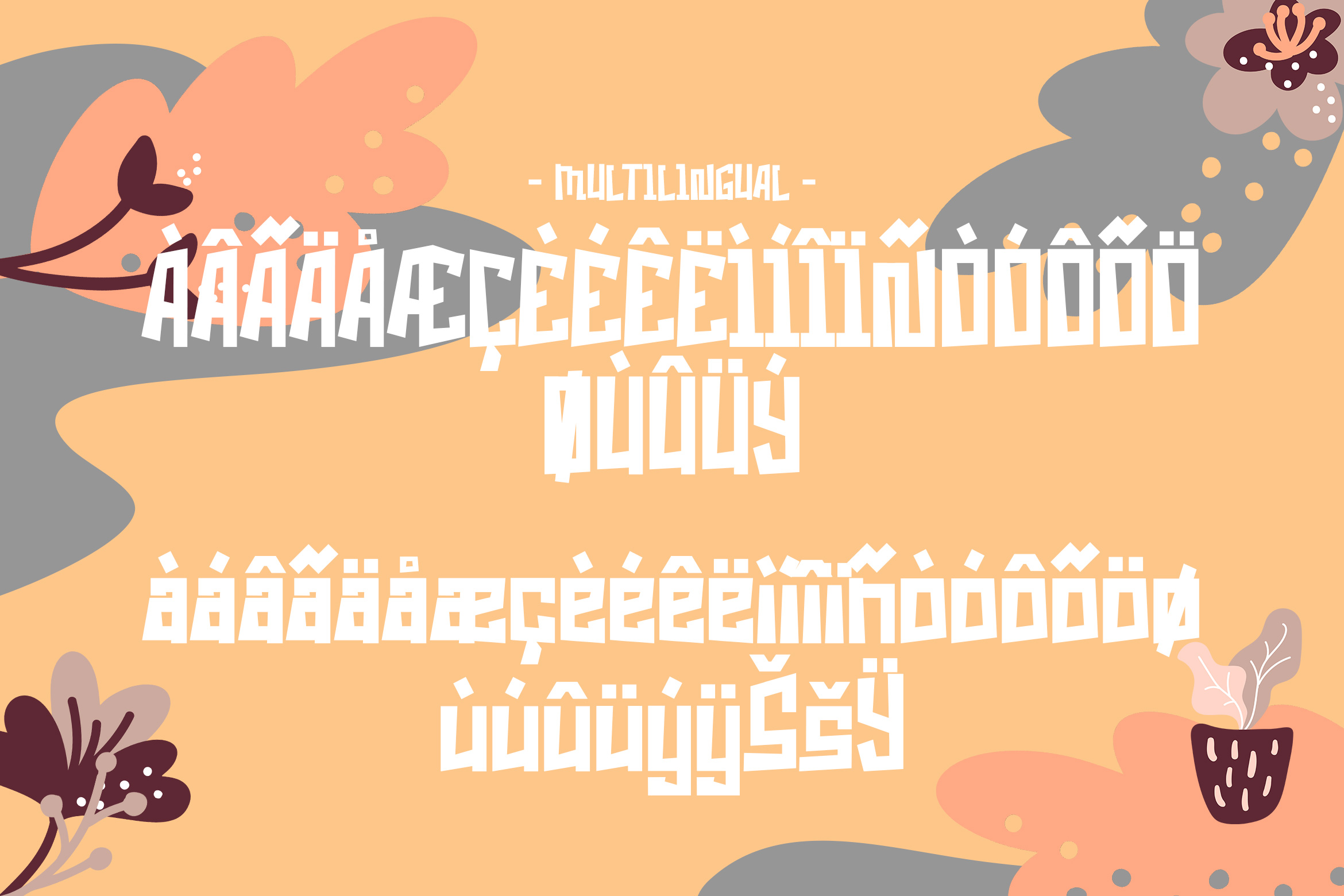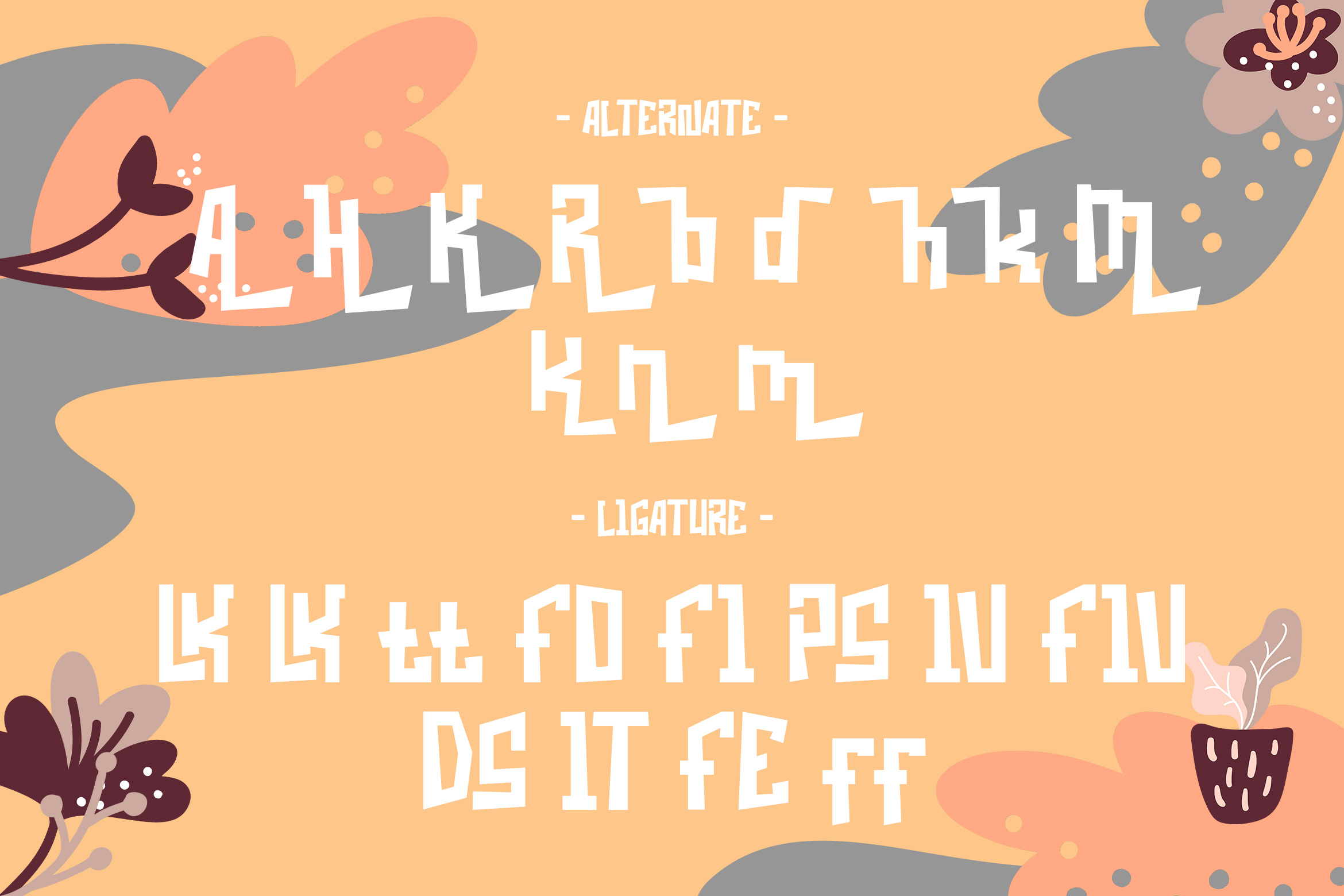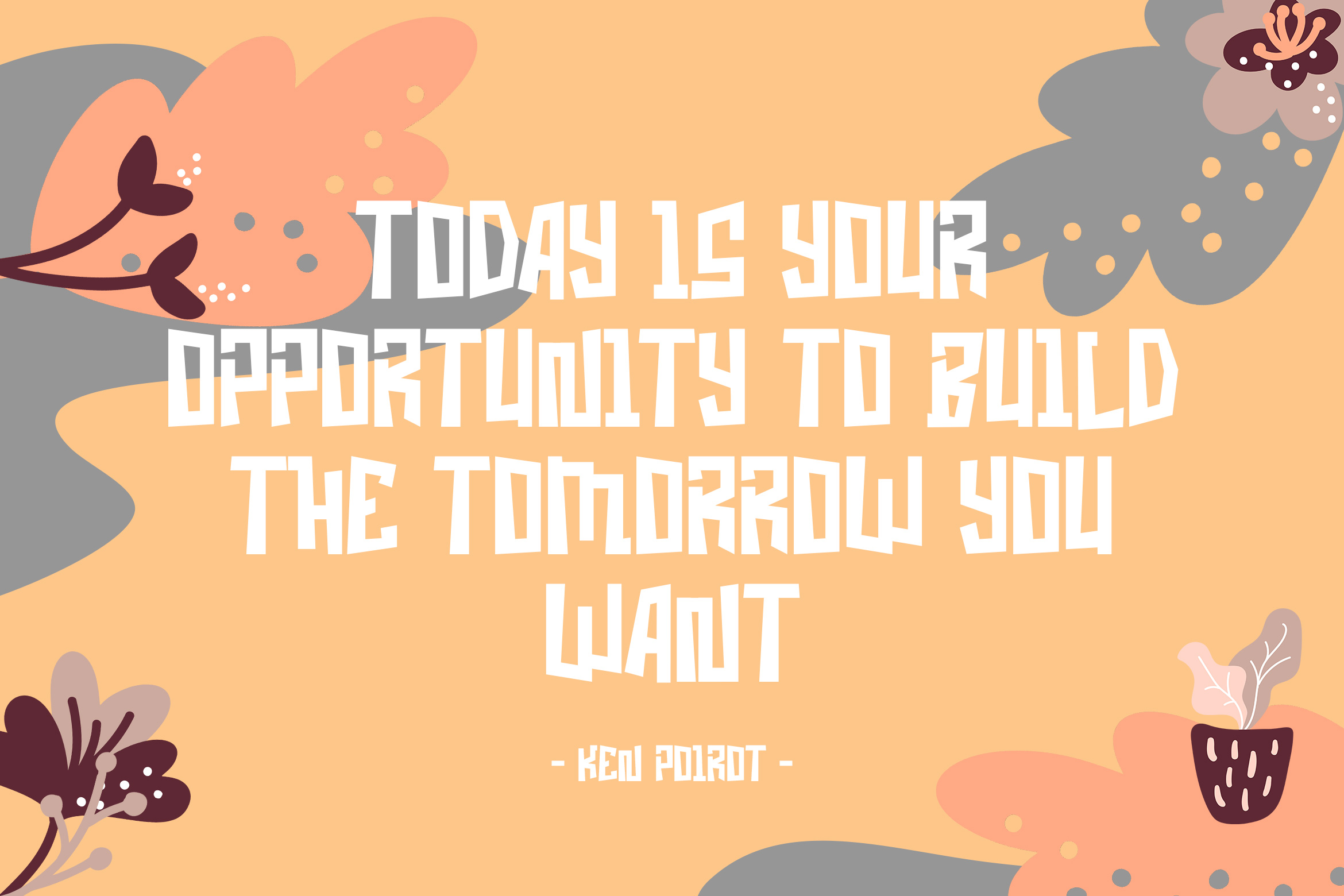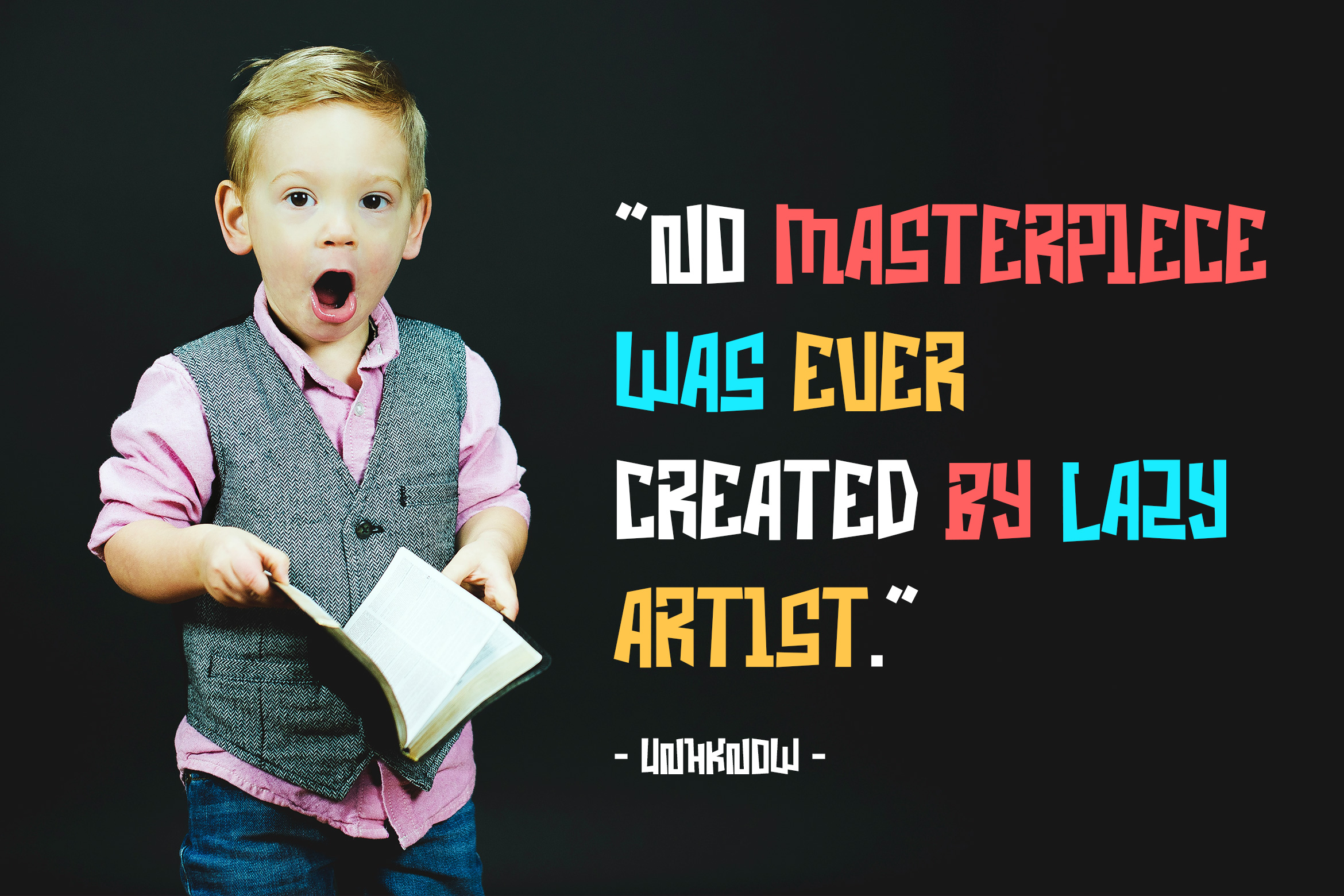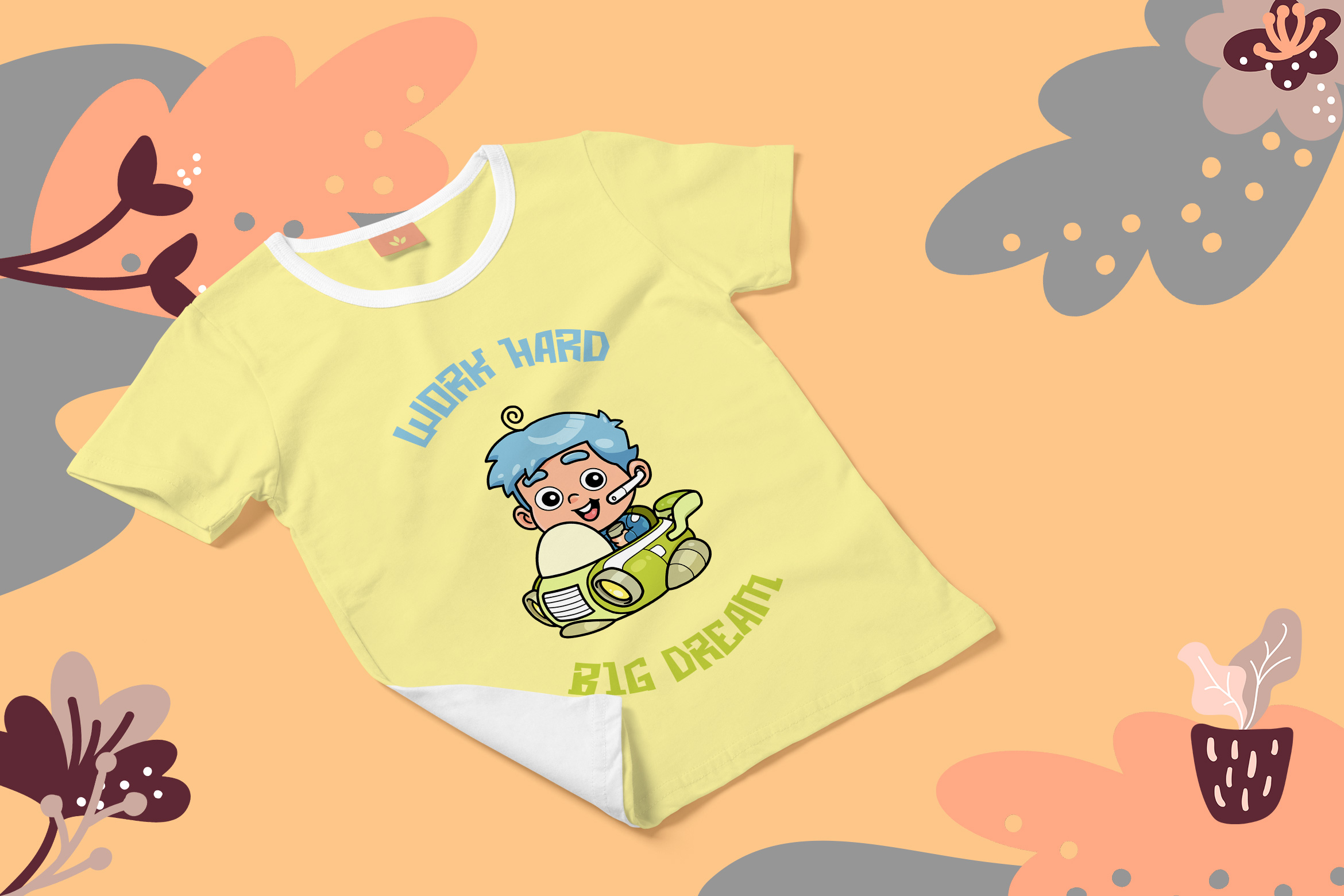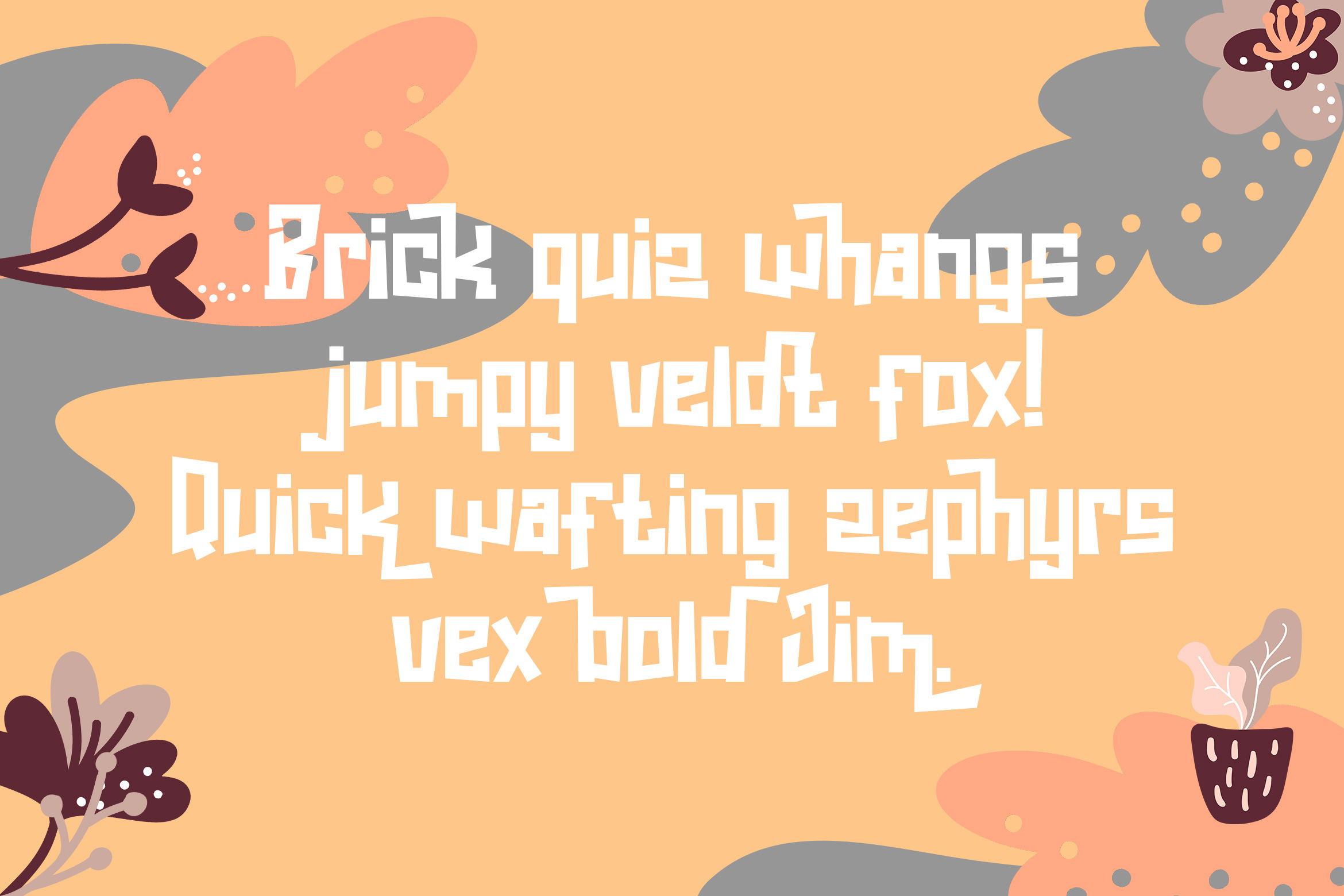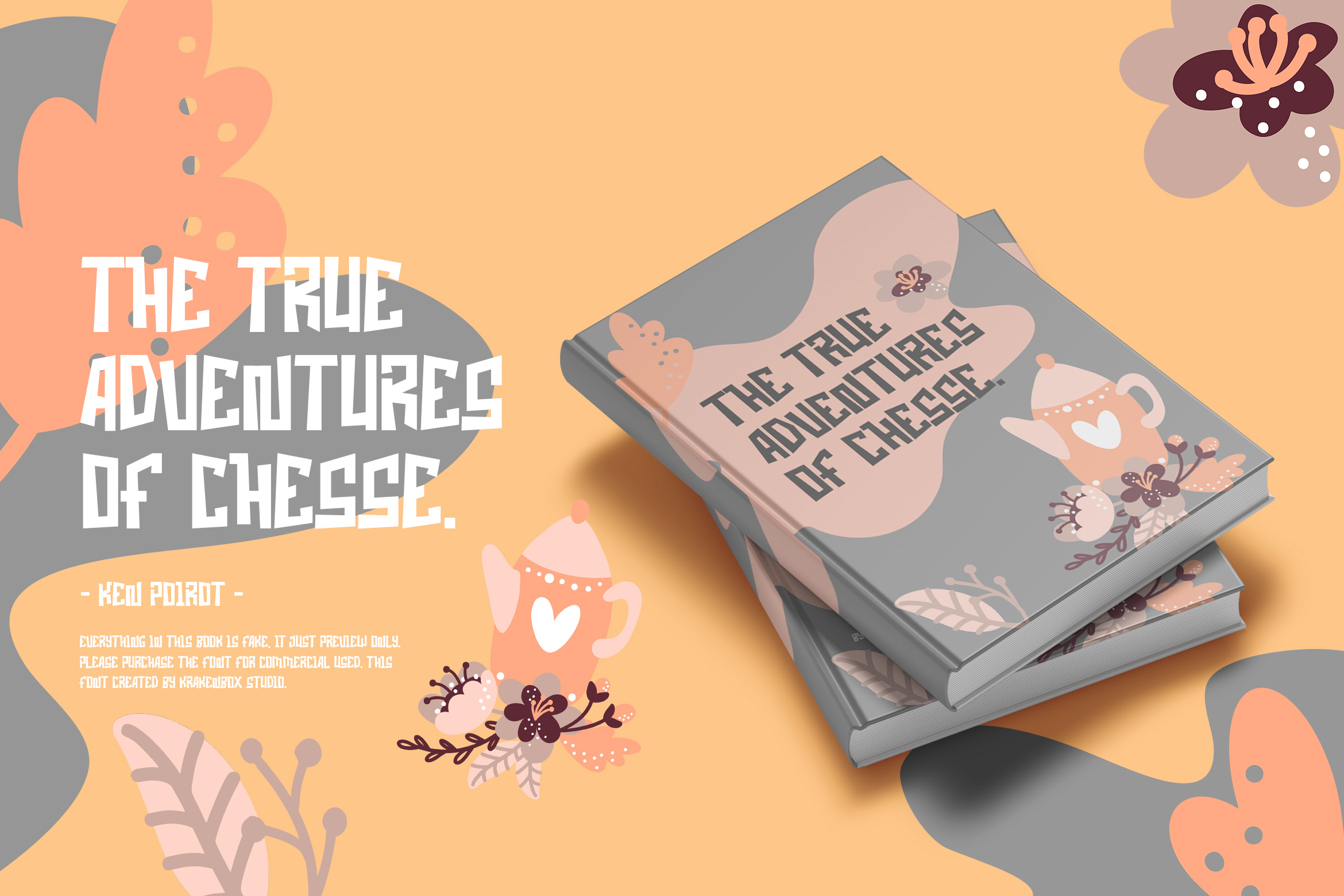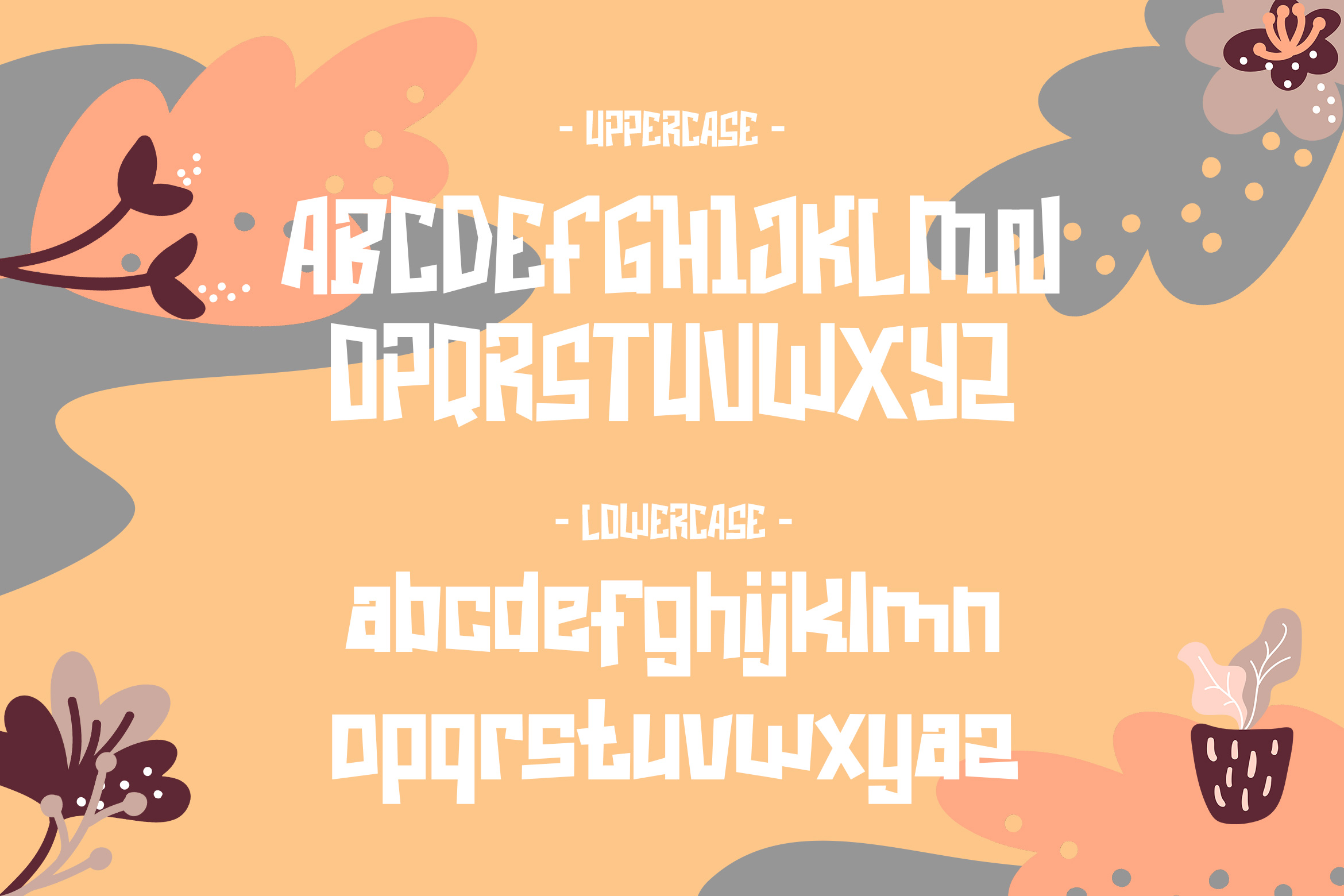
Square Squads is playful display font. It has fancy, playful, and Cool. It’s a suitable font for fashion, apparel projects, signature, album cover, logo, branding, magazine, social media, & advertisements, but also works great for other projects.